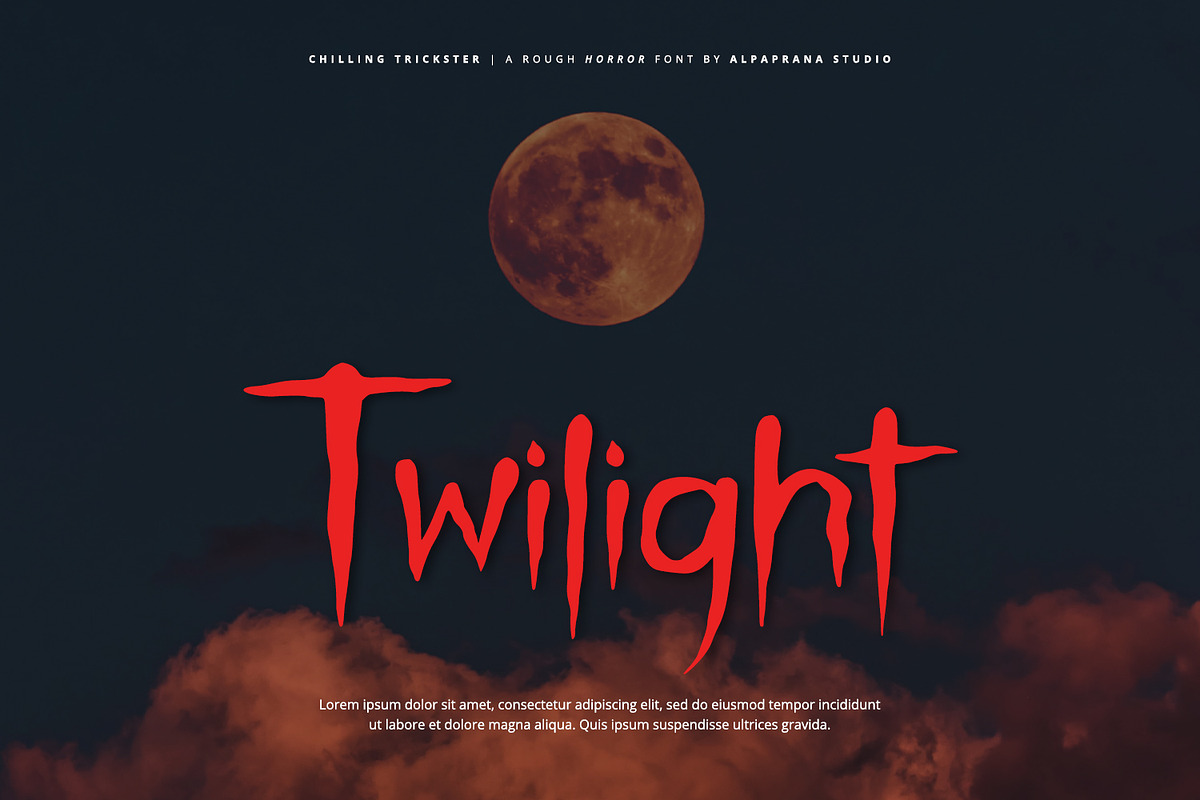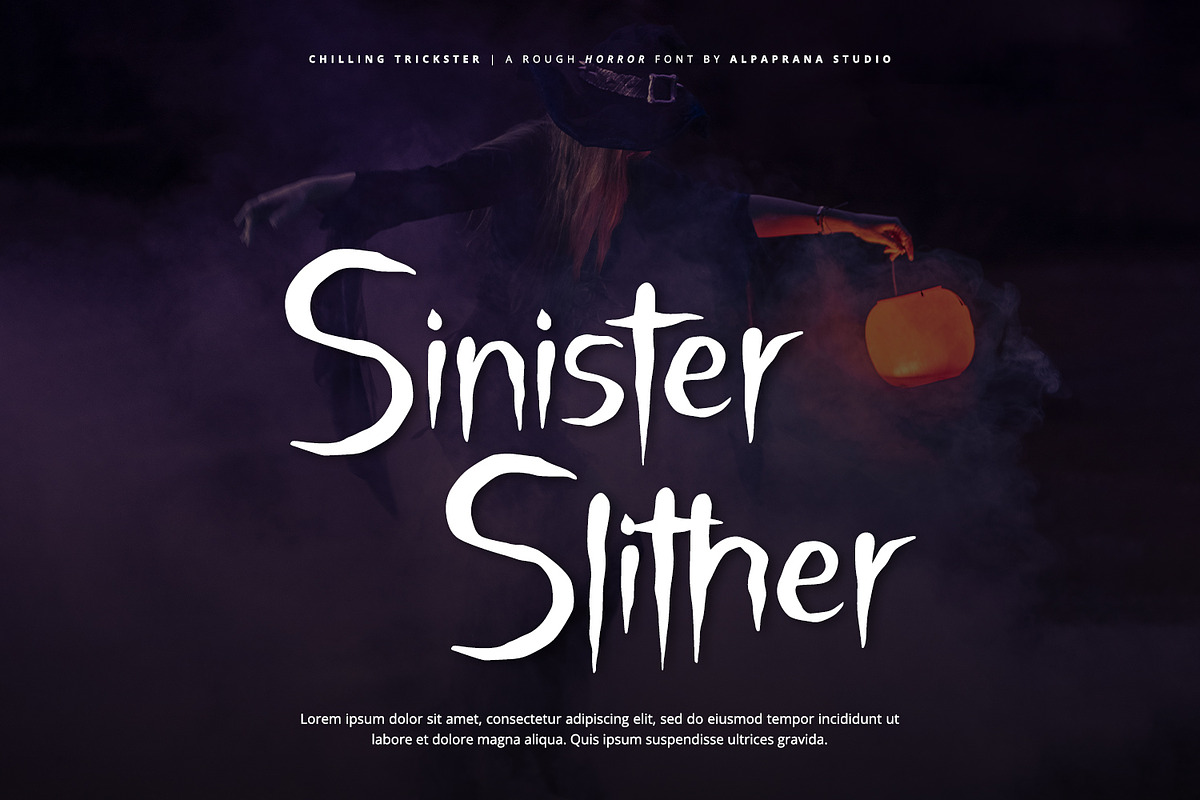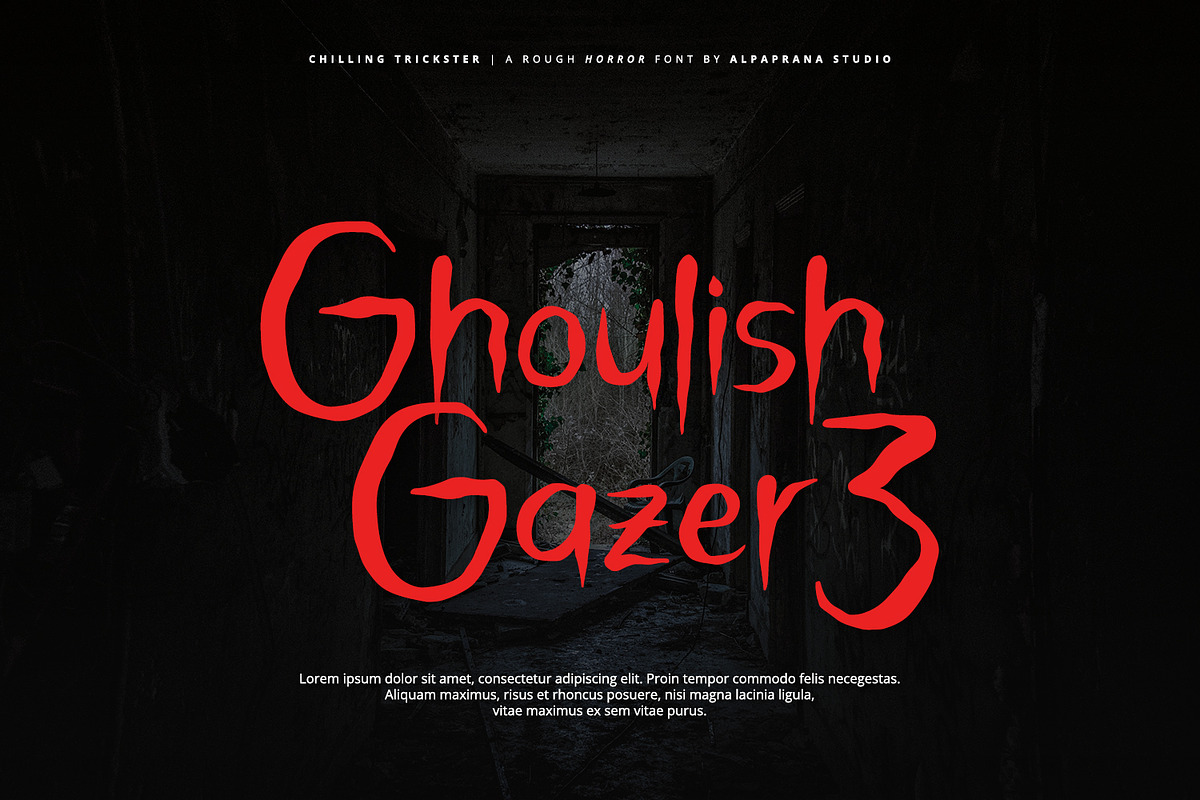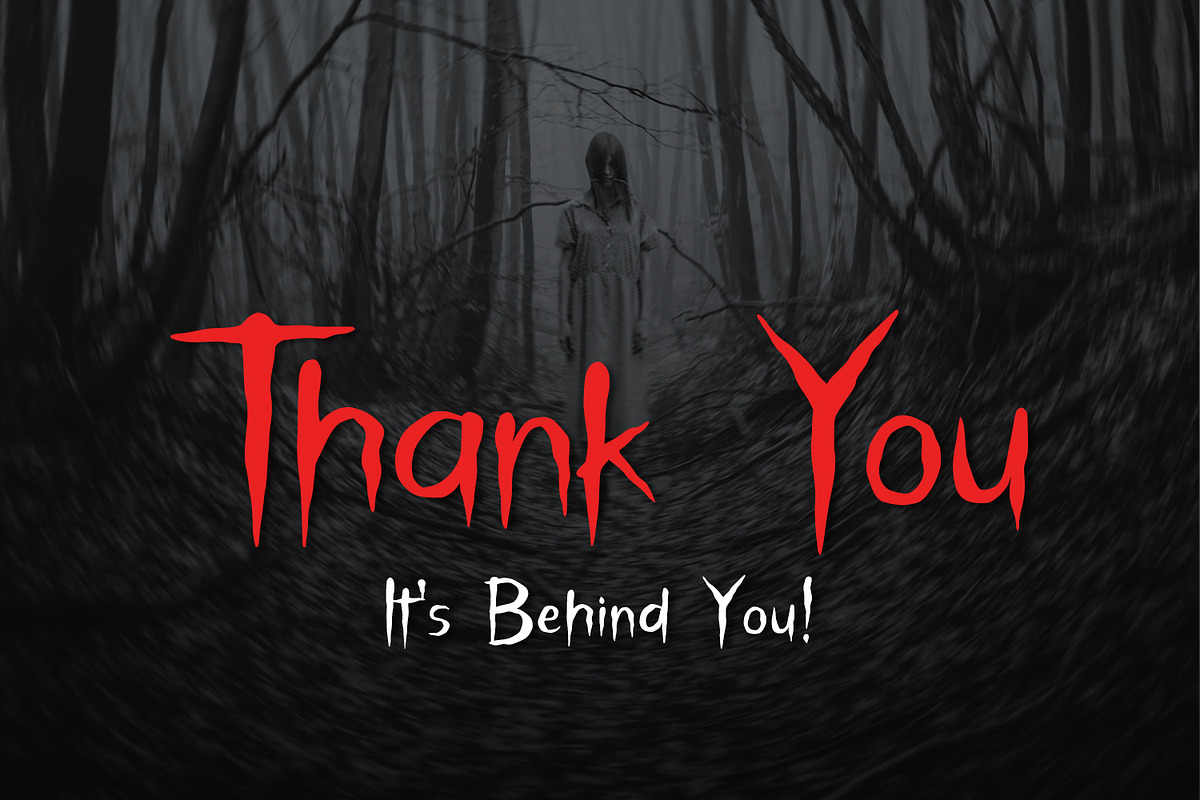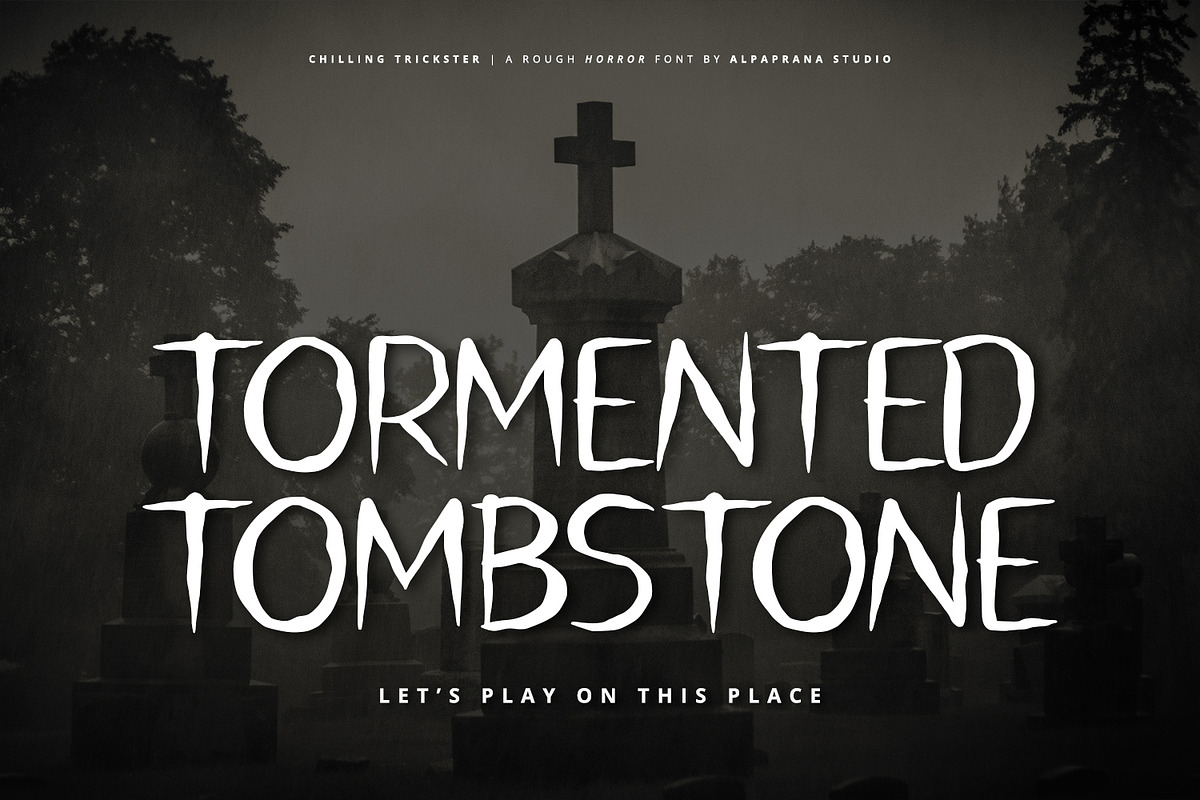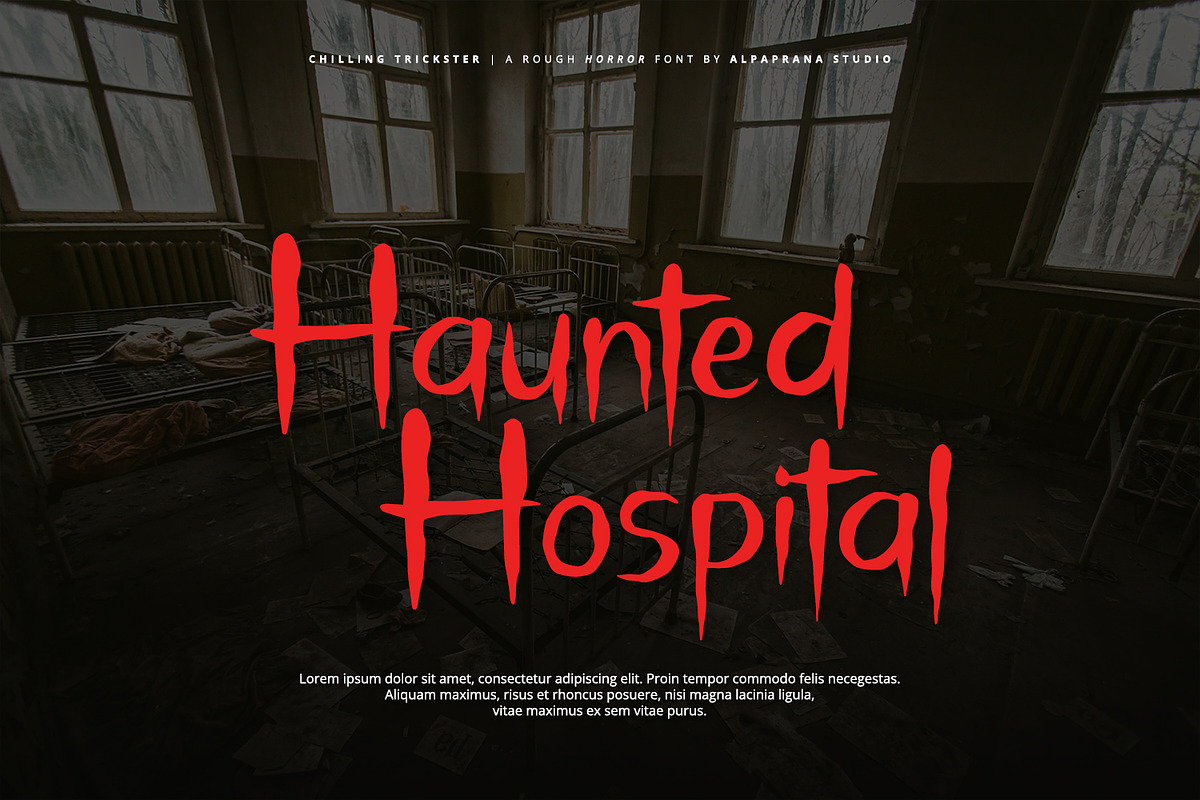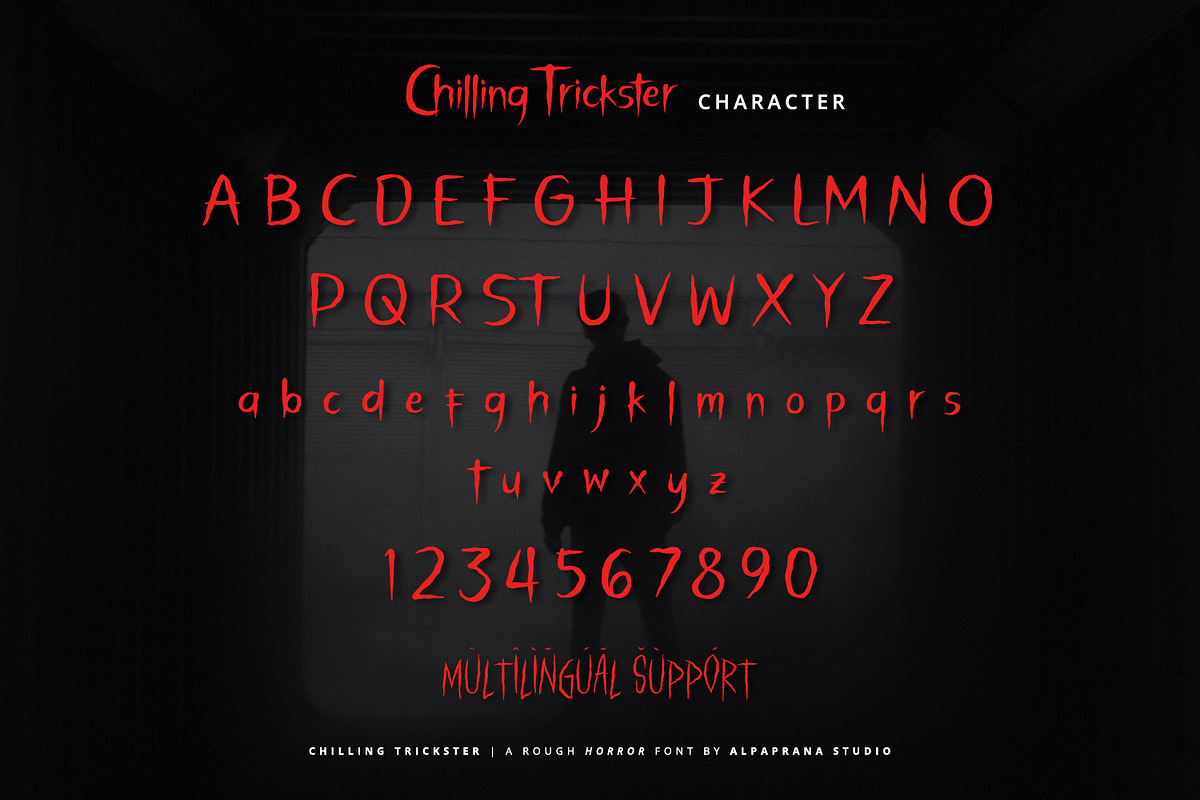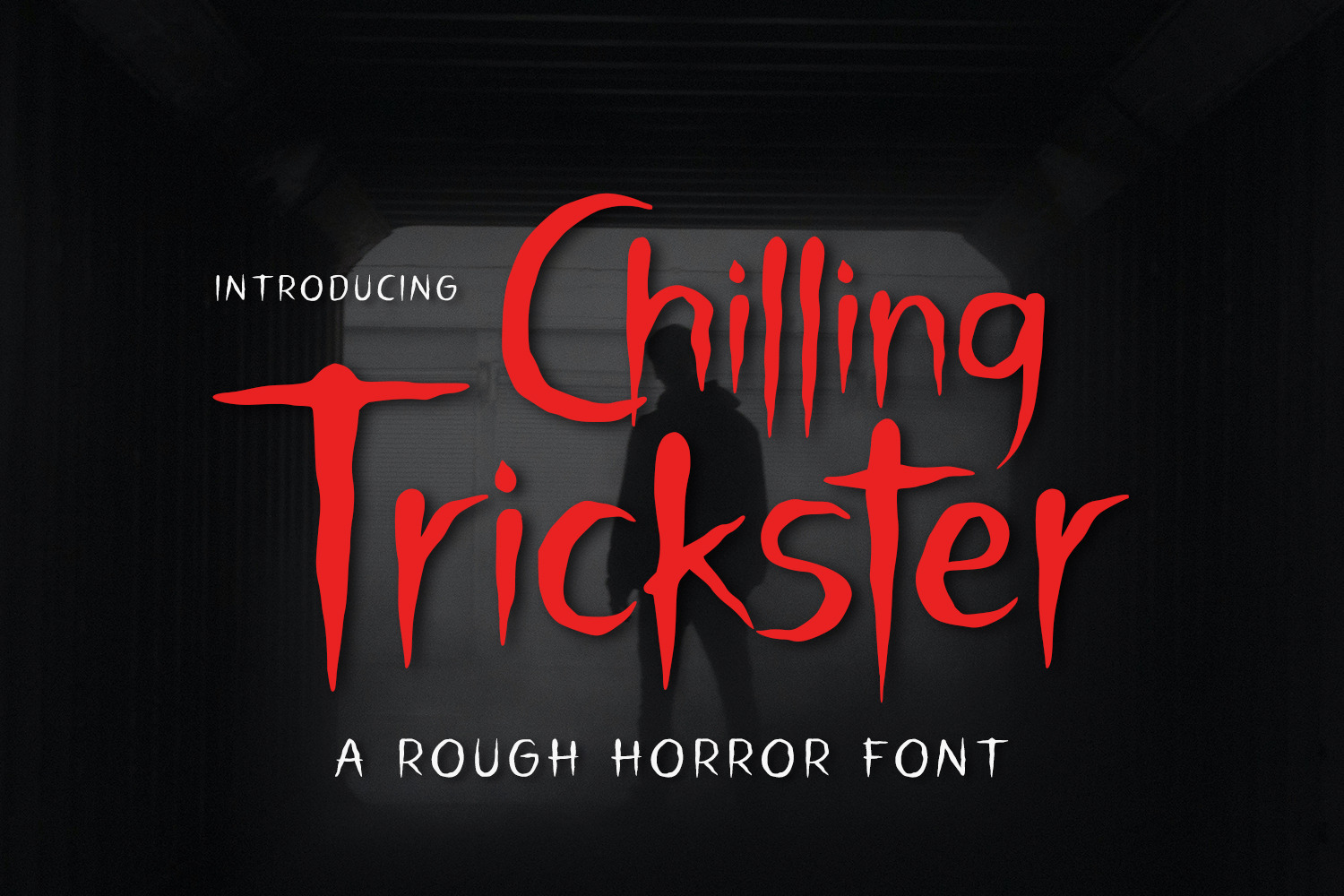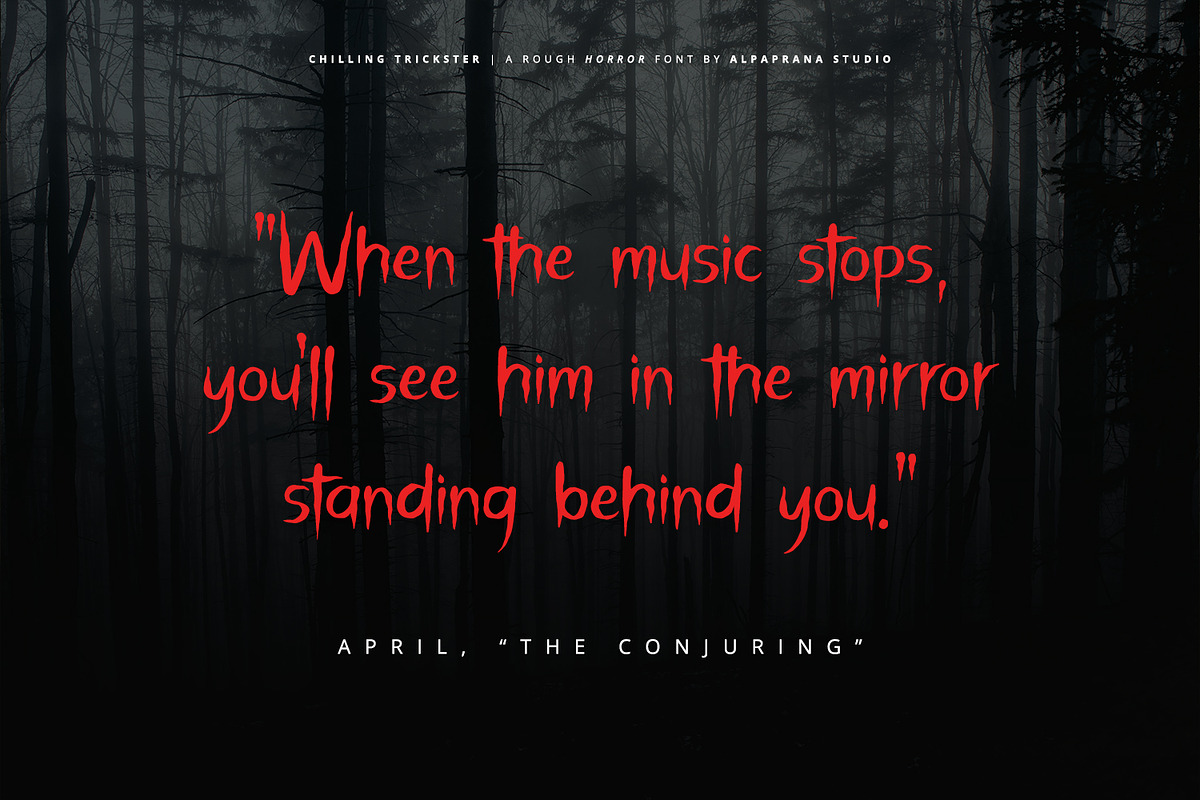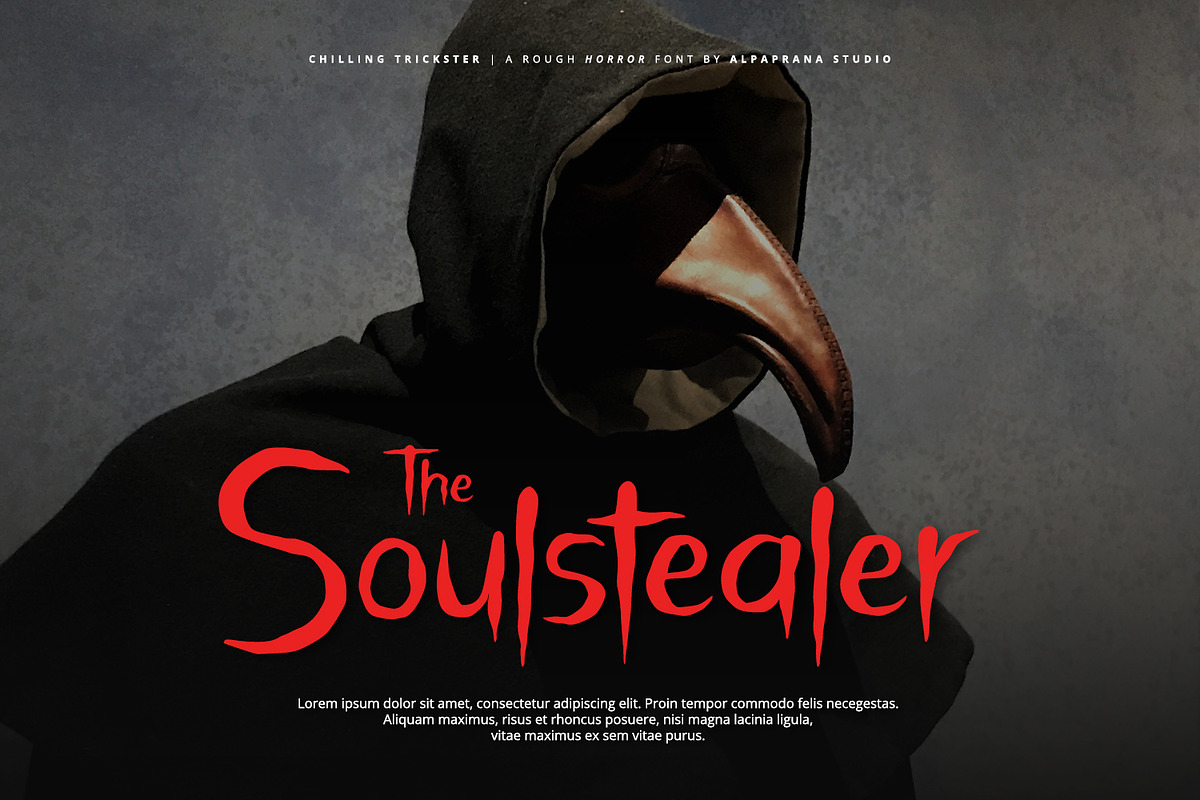
Chilling Trickster - Rough Font
Chilling Trickster is a rough horror font with scary feels. It will be perfectly used for Branding, Logo Design, Lettering, Logotype, Clothing, Poster, magazine, packaging, posters, shopping bags, t-shirts, book covers, photography, special events and other design project.